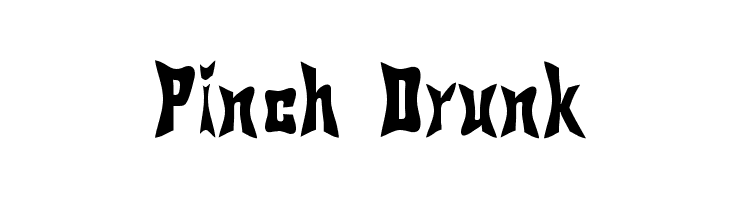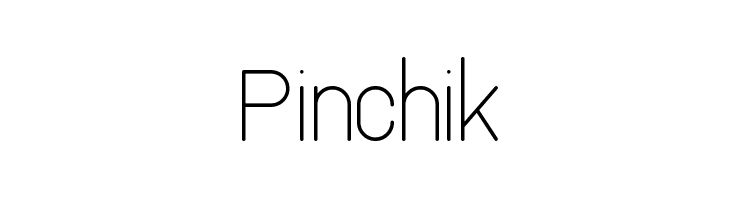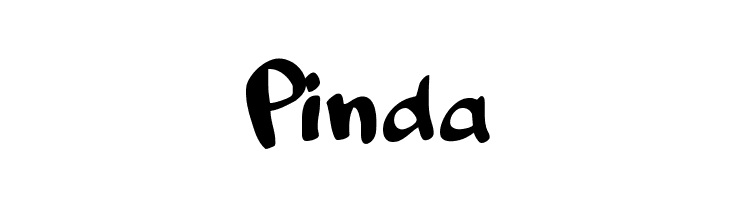
A thin, elegant script font with graceful curves and a calligraphic style.
A bold, angular font with a dynamic, distorted style.
A bold, geometric font with a modern and assertive style.
A modern, geometric sans-serif font with rounded edges and a minimalist design.
A playful, bold font with rounded, bubbly characters and a whimsical style.
A bold, playful font with rounded, hand-drawn letterforms.
A bold, handwritten-style font with expressive, brush-like strokes.
A playful, chain link-inspired decorative font with interconnected circular elements.